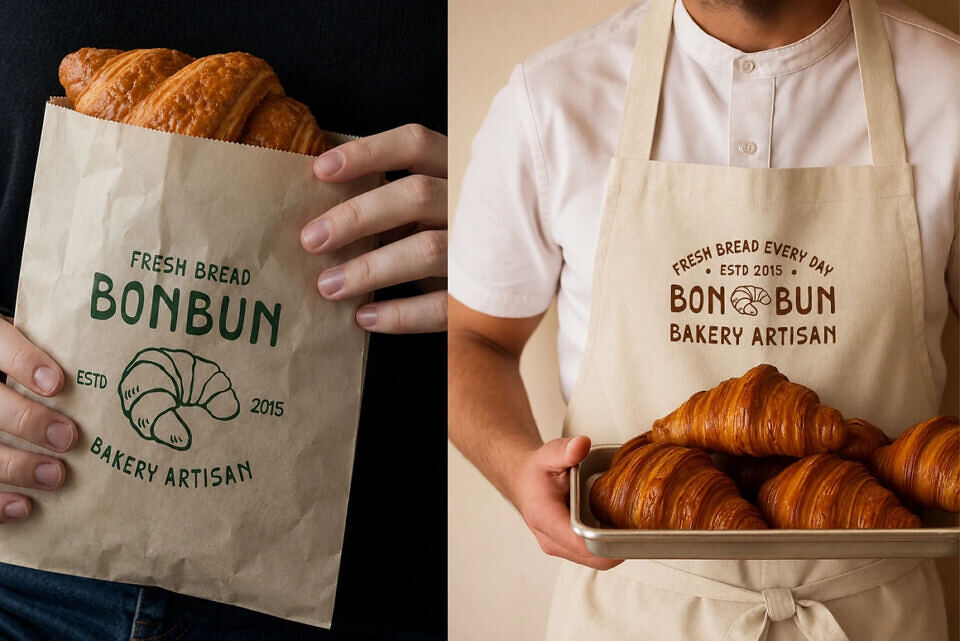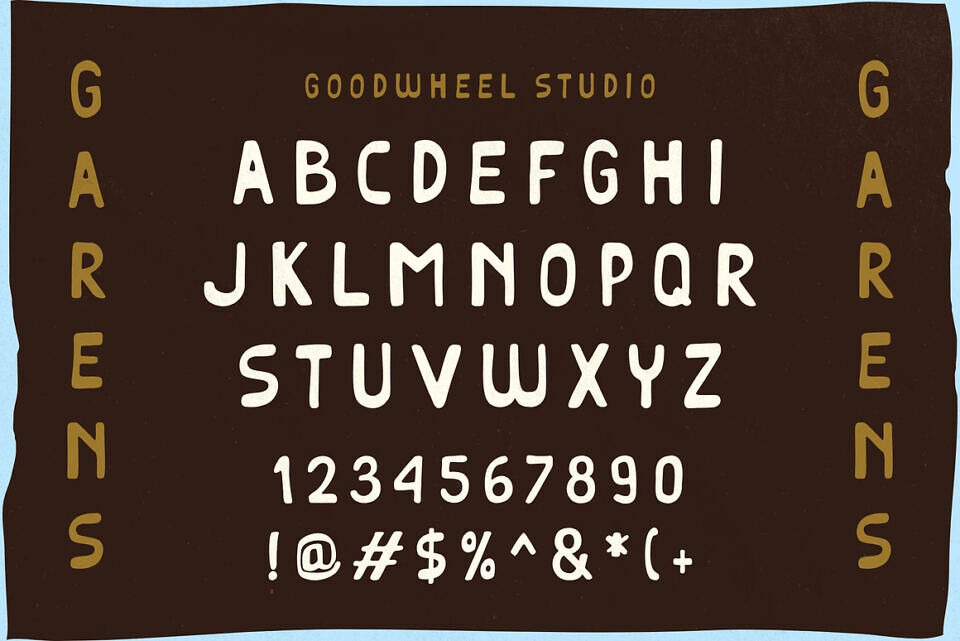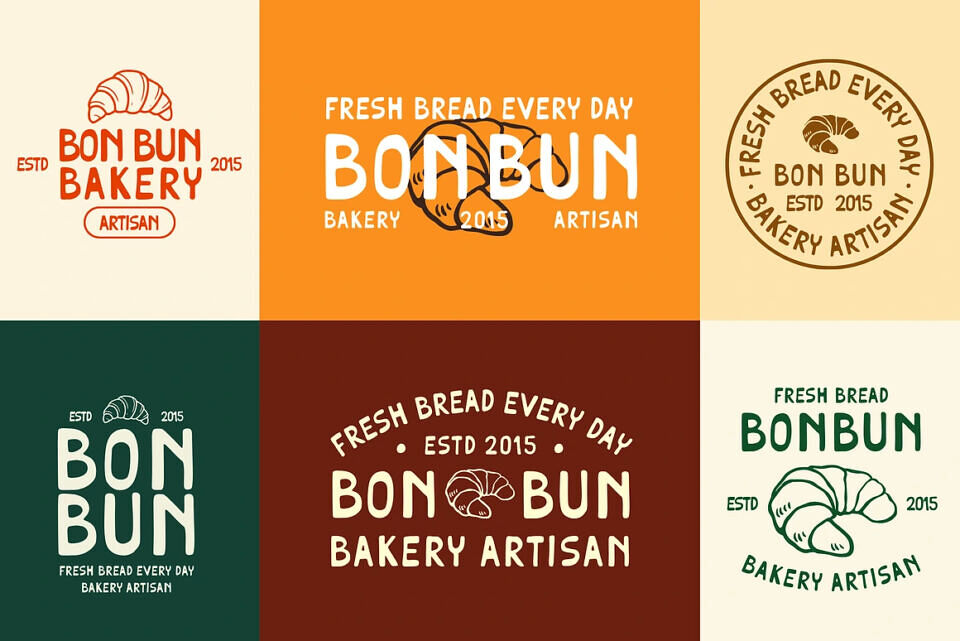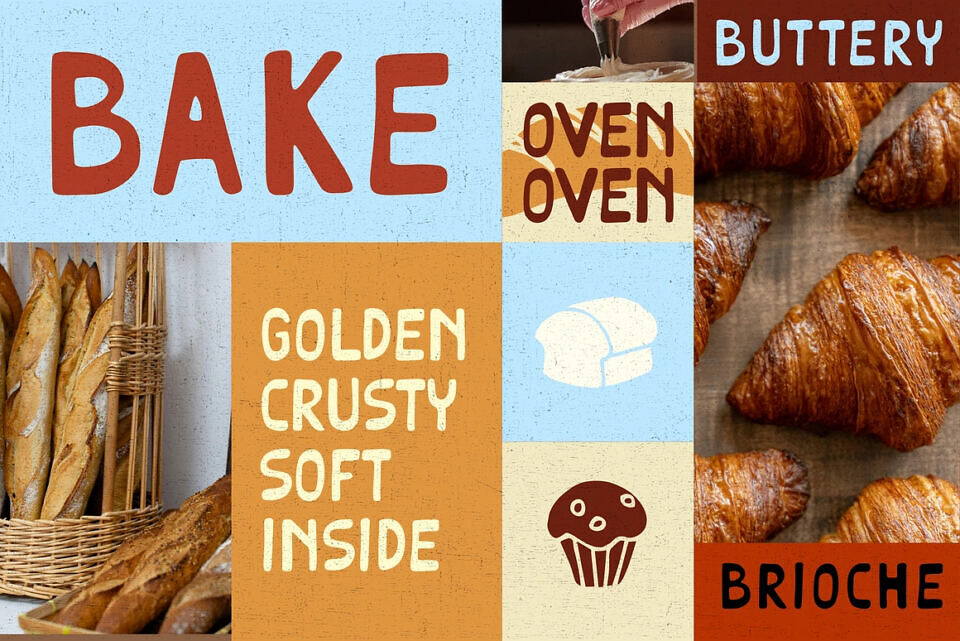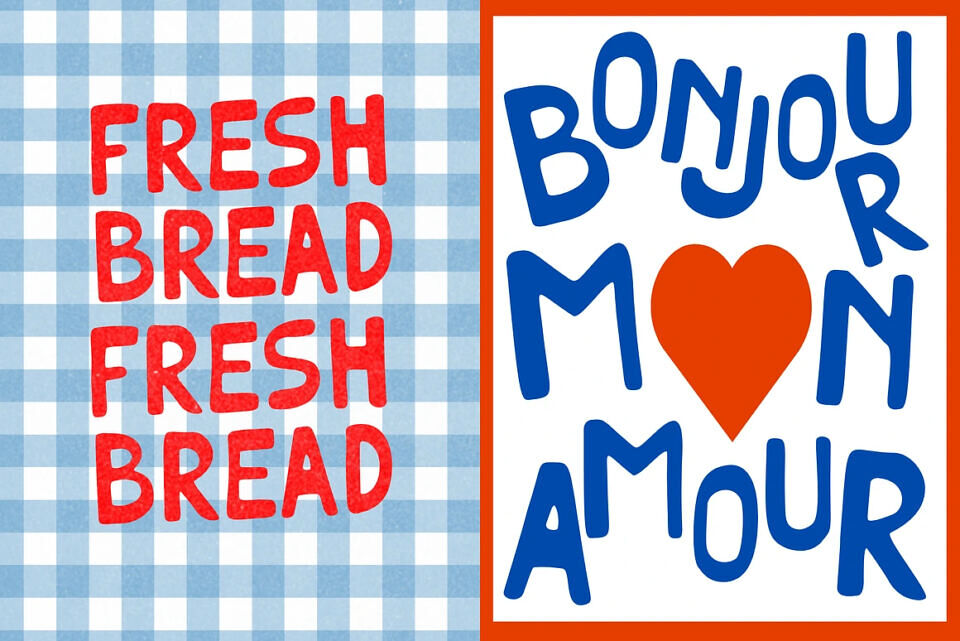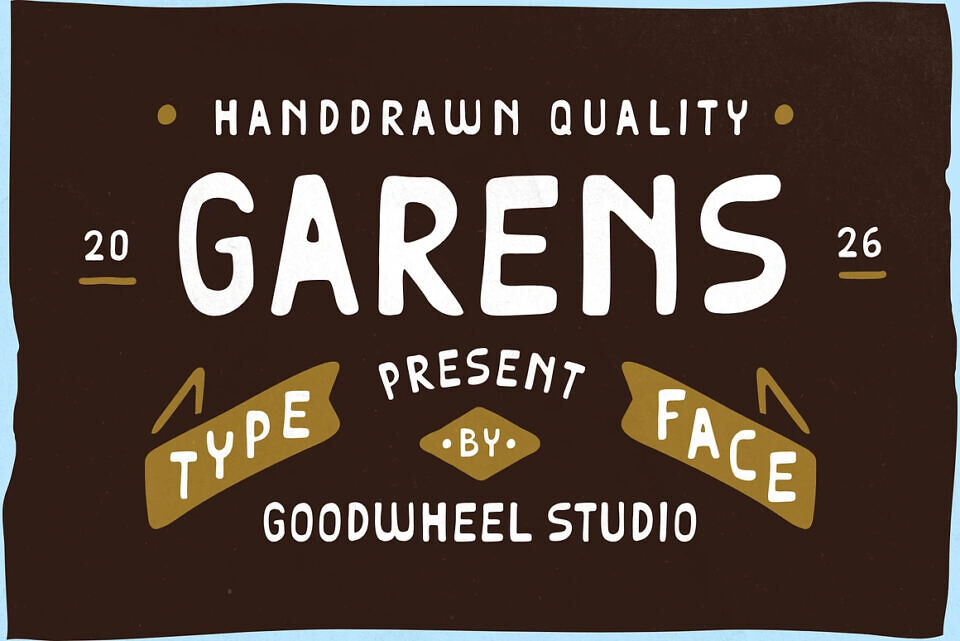
Garens Font
Garens is a bold handdrawn display font with a warm, friendly, and authentic personality. Its rounded letterforms and handcrafted feel make it perfect for creating eye-catching designs with a playful touch.
Ideal for bakery branding, food packaging, café menus, posters, social media graphics, and artisan product labels, Garens brings a sense of freshness and approachability to any project. This font is designed to help brands stand out with a unique handmade aesthetic.